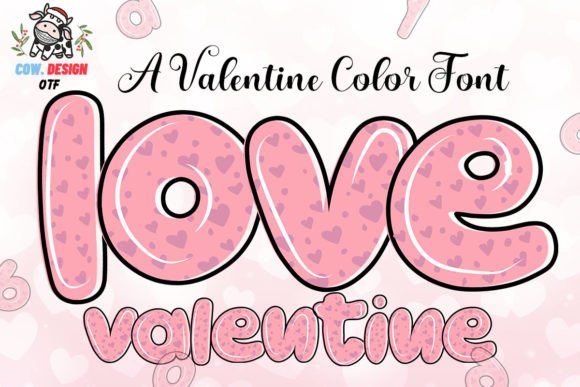
Love Valentine Font is the perfect choice for anyone looking for a unique, eye-catching font that can add a touch of creativity and fun to their design projects. Created by the talented team at COW.design, this colorful font is perfect for a range of applications, from creating impressive CV designs to designing beautiful wedding invitations.
With its cute and creative characters and a gorgeous pink color palette, Love Valentine is sure to grab attention and add a pop of color to any project. Whether you're looking to create a stunning wall display, an eye-catching logo, or an attention-grabbing advertisement, this font is the perfect choice.
But Love Valentine isn't just a pretty font - it's also incredibly versatile. Its unique style makes it ideal for a wide range of design projects, from social media posts to product packaging. So whether you're a professional designer or just someone looking to add some personality to your personal projects, Love Valentine has got you covered.
And with its strong focus on CV design, Love Valentine is the ideal choice for anyone looking to create a standout resume that will help them stand out from the crowd. With its eye-catching design and attention-grabbing style, Love Valentine is sure to impress potential employers and help you land your dream job.